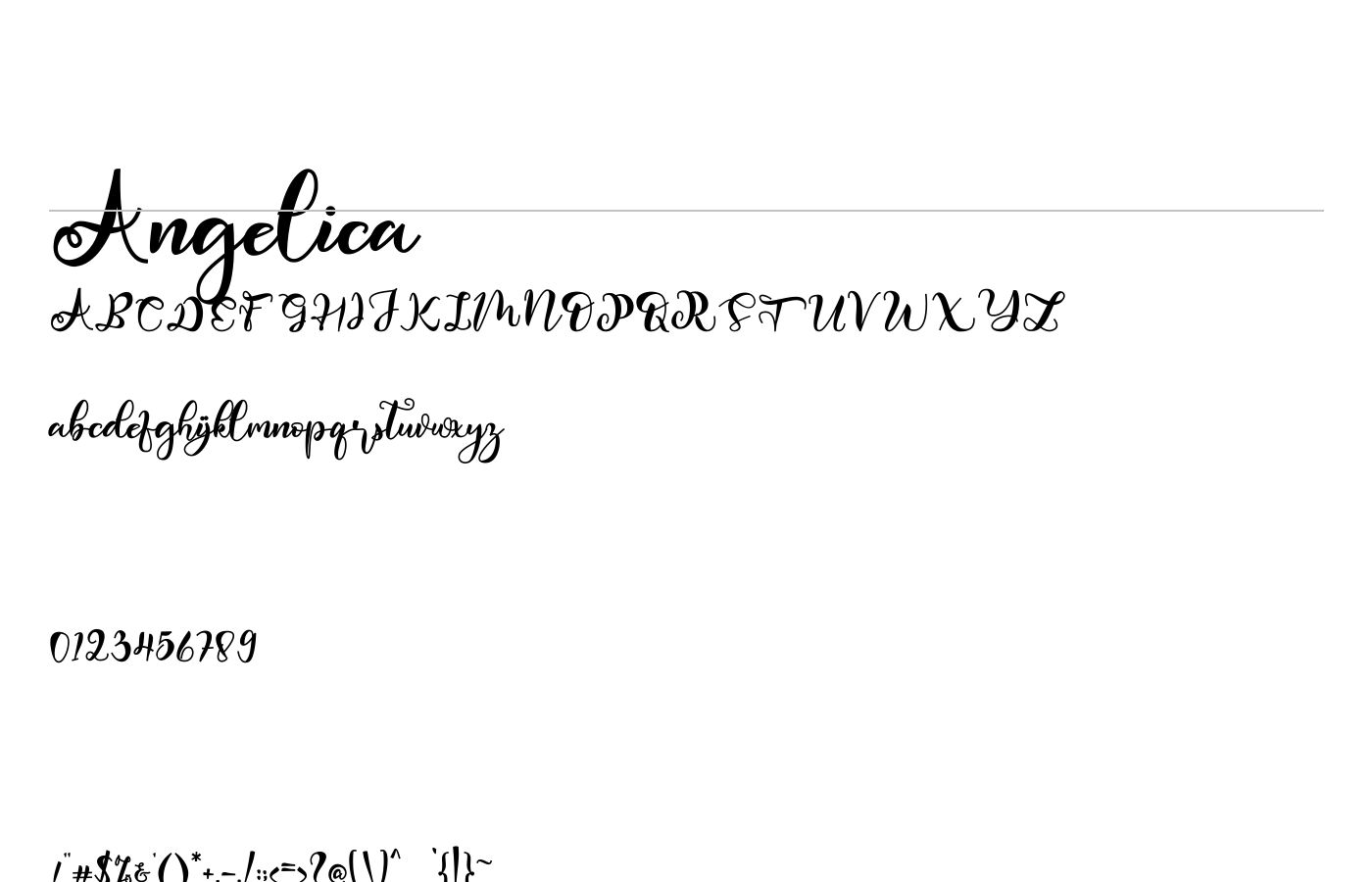
Angelica Font is an elegant script typeface with a delicate, flowing style that combines both playful and refined elements. Its smooth, connected strokes and decorative swirls make it perfect for feminine branding, wedding invitations, and creative headlines where a touch of sophistication and charm is desired. This font shines best in designs that need a graceful, personal feel rather than heavy body text.
Angelica Font